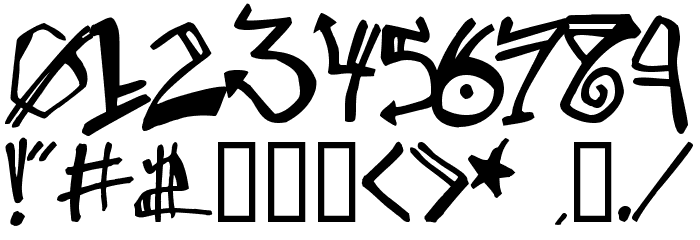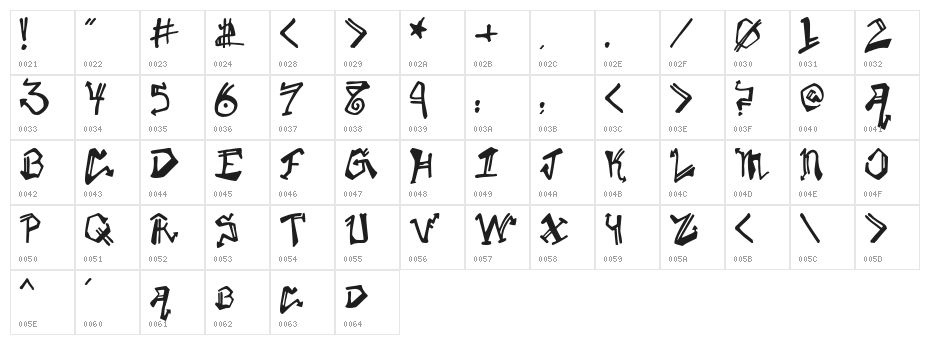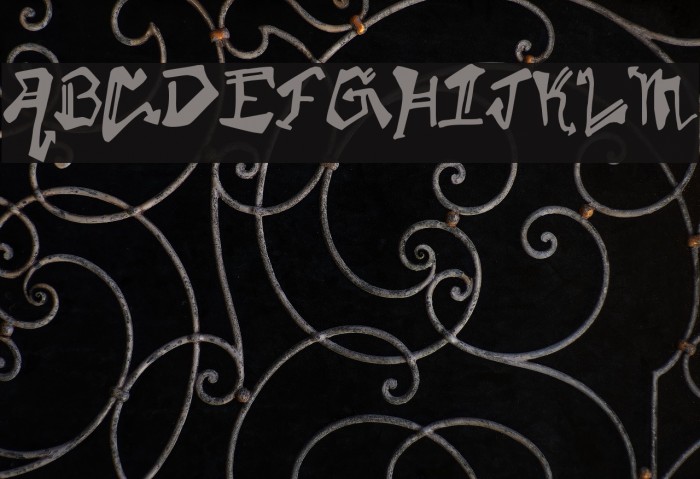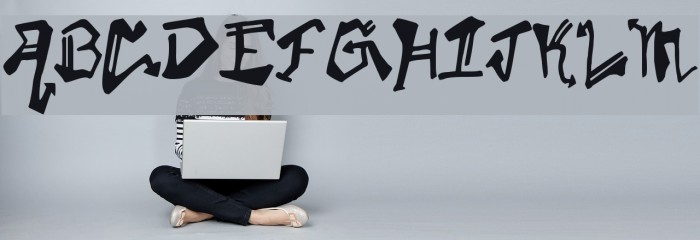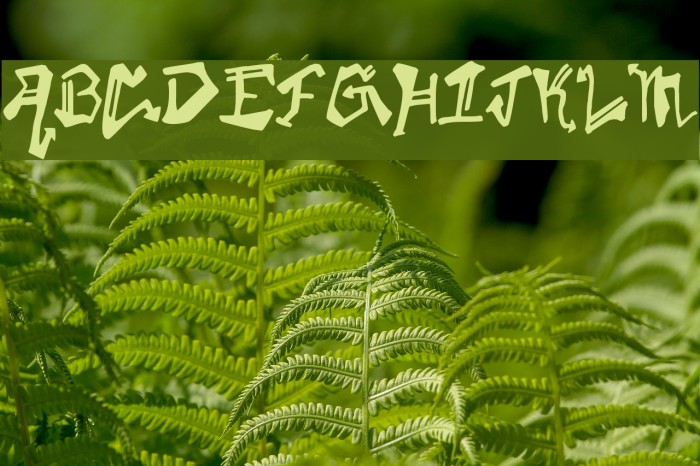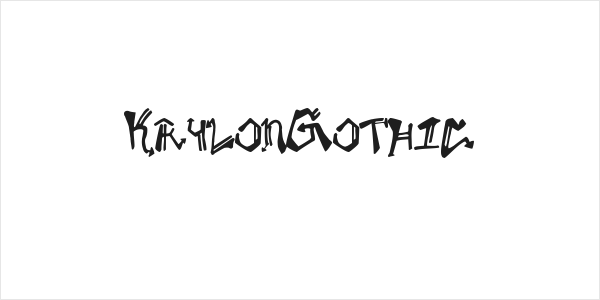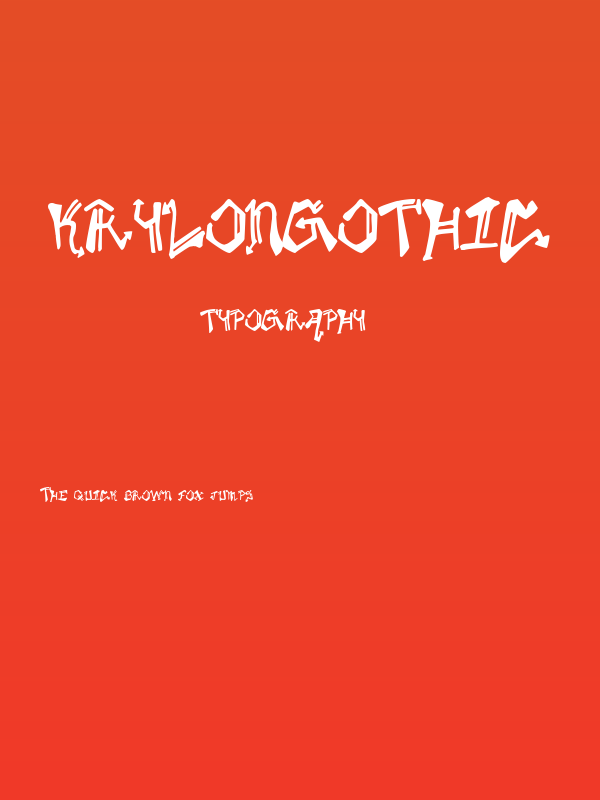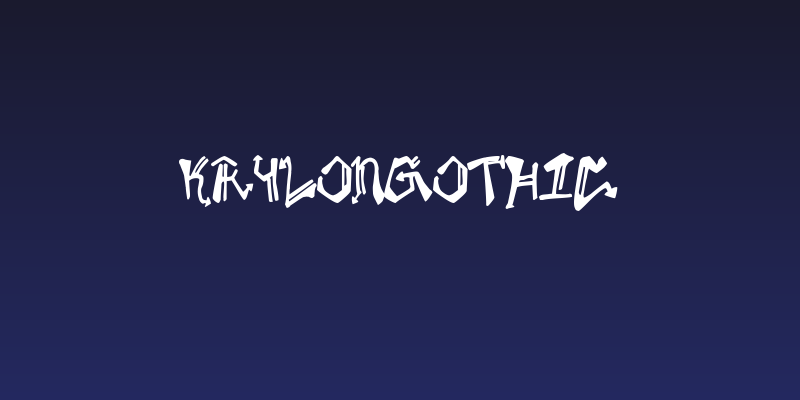
KrylonGothic Font
KrylonGothic Description
This font features a bold and edgy design with sharp, angular lines and a graffiti-inspired aesthetic. The characters are highly stylized, with exaggerated strokes and a dynamic, energetic feel. The uppercase and lowercase letters maintain a consistent style, with unique flourishes that add to the overall rebellious and urban vibe. Numbers and special characters follow the same design principles, making them stand out with their unconventional shapes. This font is perfect for projects that require a bold statement and a touch of street art flair.
| Overall Style | Modern, Urban, Edgy |
| Proposed Projects | Ideal for street art designs, music album covers, edgy branding, and urban-themed posters. |